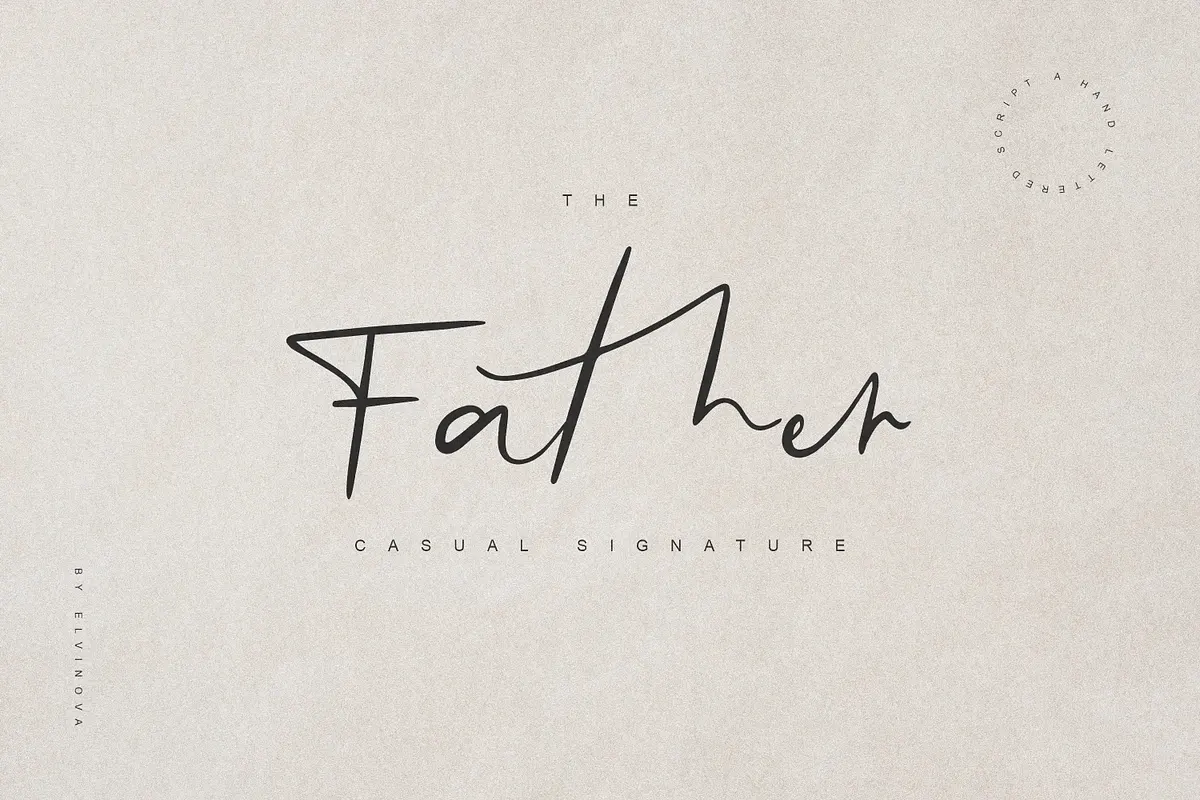
Father Casual Script Font Free Download is a laid-back, handwritten script that combines a personal touch with a relaxed, informal vibe. Featuring fluid strokes and organic curves, this font is perfect for branding, greeting cards, invitations, social media posts, and anything that needs a warm, approachable feel.
Father Casual Script Font Free Download stands out with its balance of style and legibility, making it suitable for both casual and professional projects. Whether you're designing for a creative business, a friendly blog, or a personal project, this font adds a touch of authenticity and charm.